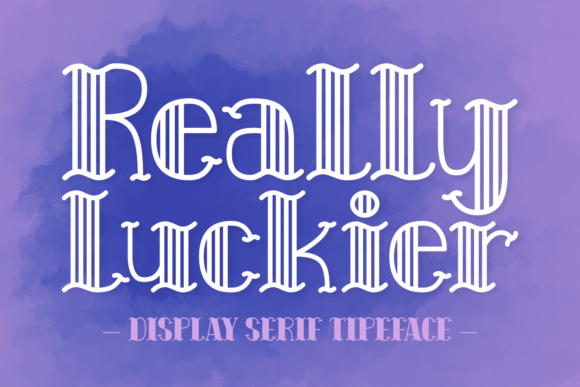
Prepare yourself to be captivated by Really Luckier, an extraordinary display font that exudes charm and personality. This enchanting typeface will transform your designs into works of art, making an indelible impression on your audience.
Really Luckier's distinctively crafted serifs add a touch of elegance to your creations, while its captivating curves lend a sense of playfulness and dynamism. It's the perfect choice for adding a touch of flair to fabric prints, posters, cards, and advertising materials.
Imagine your designs illuminated by the brilliance of Really Luckier. It's the perfect font for creating captivating headlines that demand attention, or for adding a touch of sophistication to your branding. Its versatility extends to both digital and print media, making it an indispensable tool for any designer.
Really Luckier is the key to unlocking your creative potential. It's a font that empowers you to express yourself fully, creating designs that leave a lasting impact. Let Really Luckier be your guide as you embark on a journey of creativity and imagination.